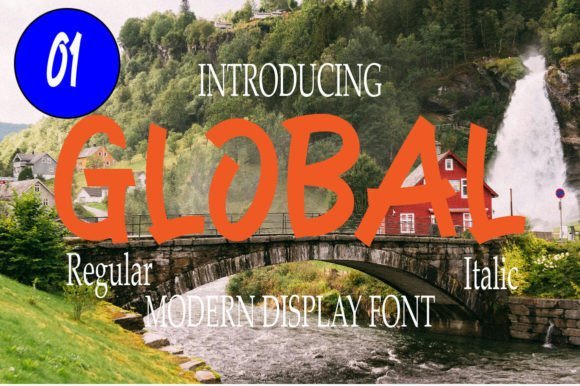
Unleash Your Creativity with the Global Font
Do you remember the thrill of staying up late, surrounded by paint-splattered canvases, scraps of paper, and half-finished sketches? It’s that moment when creativity strikes, and you know exactly what you want to create. For designers, this spark is what drives them to push boundaries and bring innovative ideas to life.
One tool that can help you tap into that creative potential is the Global Font, a fun and quirky handwritten font that adds a personal touch to any project. Whether you’re designing a logo, a poster, or a social media graphic, Global Font is the perfect companion to help you stand out from the crowd.
With its versatility and unique character, Global Font is a valuable asset for designers looking to add a human touch to their work. By incorporating this font into your creative projects, you can create a visual identity that’s truly global in its appeal, connecting with audiences from diverse backgrounds and cultures.
Key Features of Global Font
- High-Quality Typography: The font is designed with a resolution of 1200 DPI, resulting in crisp and clear text, perfect for both on-screen and print applications.
- Global Language Support: As the name suggests, Global Font supports a wide range of languages, including Latin, Cyrillic, Greek, and many non-Latin scripts, making it an ideal choice for global brands and organizations.
- Unique Character Set: The font features a unique set of characters, including symbols, icons, and glyphs, which can be used to create visually appealing and engaging designs.
- Customizable: Global Font is highly customizable, allowing users to adjust font sizes, styles, and colors to suit their specific needs and preferences.
- Scalable: The font is designed to be scalable, ensuring that it looks great on any device, from small mobile screens to large desktop monitors.
Global Font Review
Overall, I’m impressed with the Global Font. Here’s what I like about it:
- ✨ The font has a wide range of languages supported, making it a great option for international projects.
- ✨ The font is highly customizable, with various weight and style options available.
- ✨ The font is optimized for digital use, making it look crisp and clear on screens.
- ⚠️ The font can look a bit generic and unoriginal, which may not be ideal for projects that require a unique look and feel.
- ⚠️ The font may not be as readable at very small sizes, which could be a concern for projects that require a lot of text.
Overall, I think the Global Font is a solid choice for most projects. While it may not be the most unique or original font, it’s highly customizable and optimized for digital use, making it a great option for international projects or projects that require a lot of text.
Tips for Getting the Most Out of Global Font
Use Global Font to create a consistent visual brand across all your designs.
Experiment with different font sizes and styles to create a unique look.
Use Global Font in combination with other design elements to create a cohesive design.
Use Global Font for:
Branding and logo design.
Marketing materials such as brochures and flyers.
Web design and development.
Presentations and reports.
Alternatives to Global Font for Designers
Base Font
A Base Font is a primary font used throughout a design system, but it’s not necessarily the same as the Global Font. It’s used for body text and is chosen based on legibility and readability. Unlike Global Font, Base Font is not necessarily used for headings and titles. Use Base Font when you need a consistent font for body text across your design system.
Typography System Font
A Typography System Font is a font that’s part of a larger typography system, which includes a set of fonts, font sizes, and line heights. It’s used to create a cohesive visual hierarchy and is often used in conjunction with other fonts. Unlike Global Font, Typography System Font is more focused on creating a consistent visual language throughout a design system. Use Typography System Font when you need to create a consistent visual hierarchy across your design system.